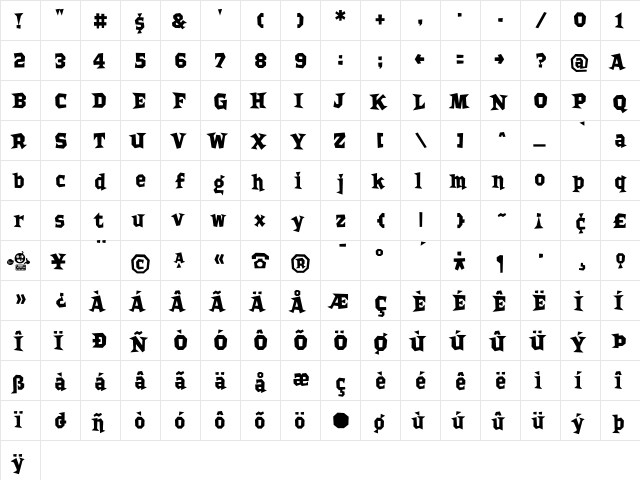
Bordello Bold
Design Context for Bordello Typeface
Bordello is a composed and adaptable typeface that performs quietly and consistently across a wide range of design contexts. Its bold stroke weight gives it real presence on the page.
Pro Tip: Pair Bordello with a font of contrasting weight or personality to build a more expressive typographic hierarchy.